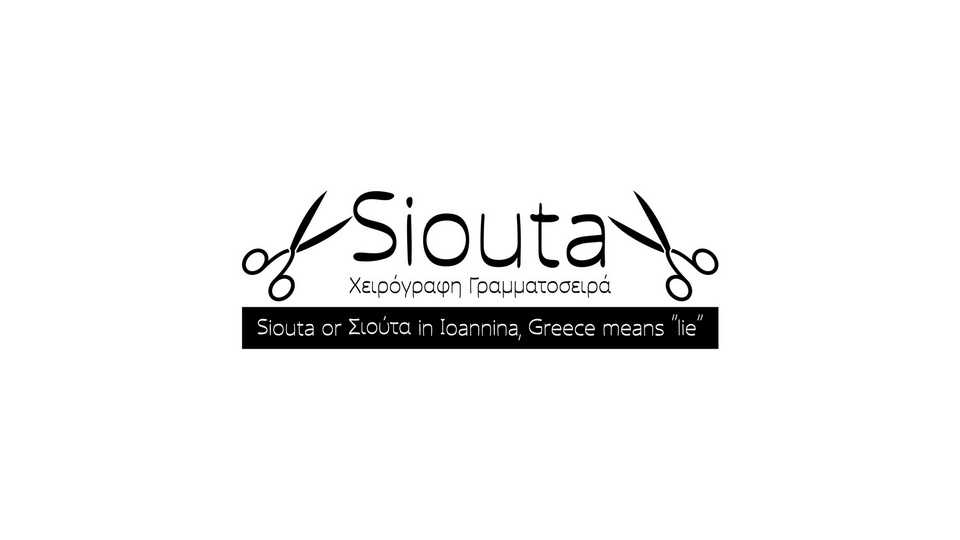
Download Siouta font, a simple and soft hand-drawn typeface that envelops your designs in a delicate embrace of artistic tenderness. Siouta font features a natural and organic design, with each letter exuding a sense of elegant movement.
Designer: Christos Lentzaris